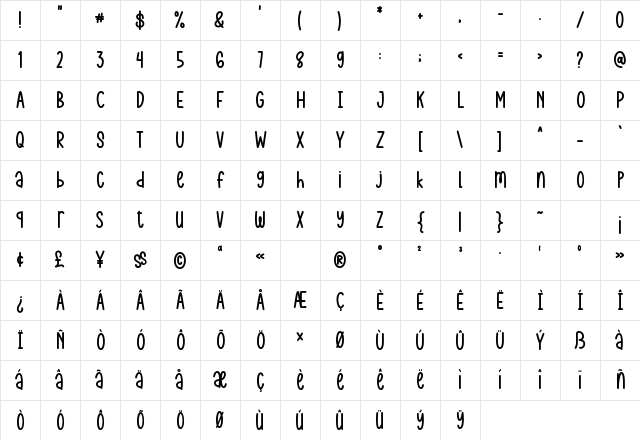
Letsfly 2 Regular Free Font
Letsfly 2 Regular
Designer: Letter Art Studio
Design Context for Letsfly 2
Letsfly 2 is a composed and adaptable typeface that performs quietly and consistently across a wide range of design contexts.